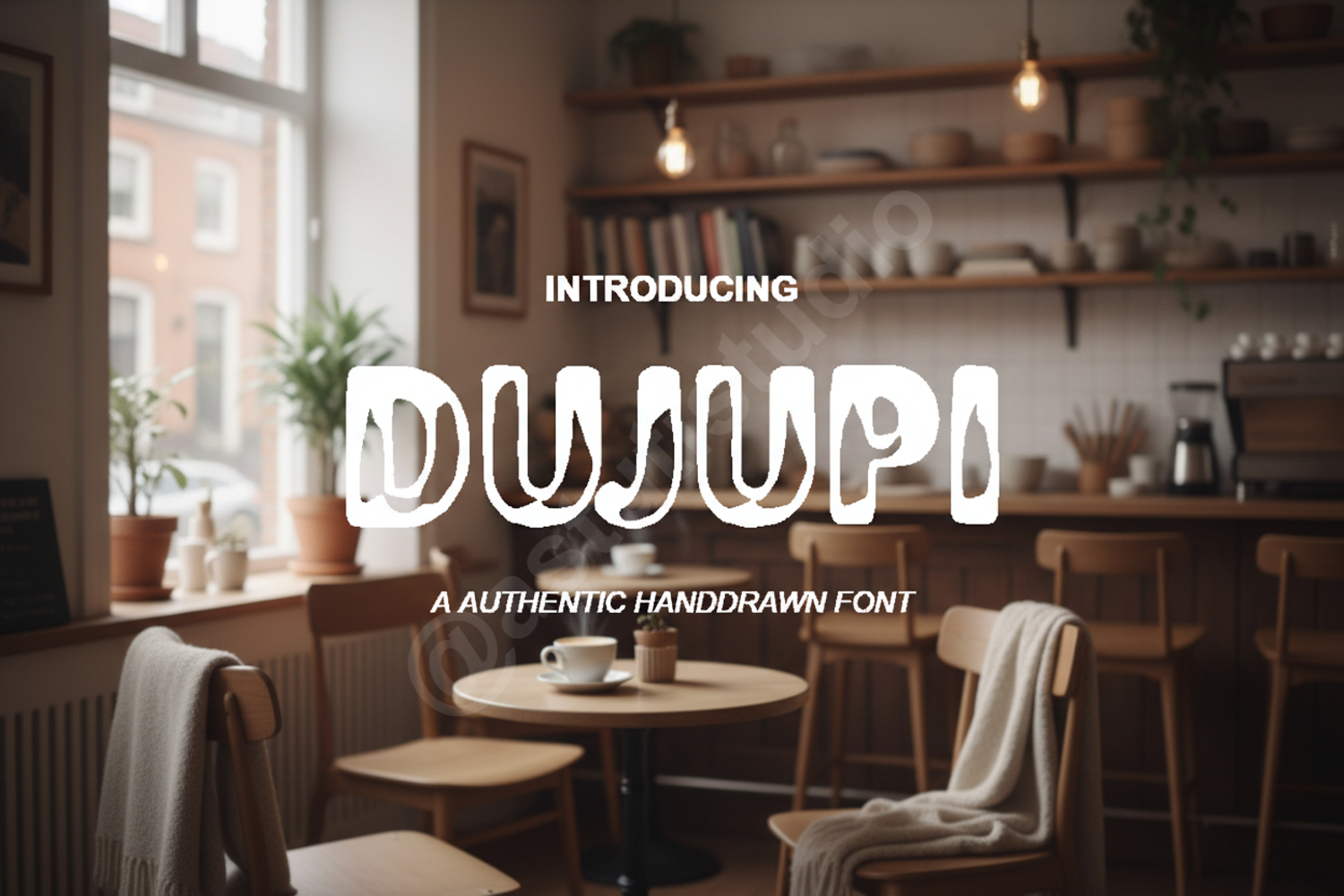
Dujupi - A Modern and Sophisticated Serif Typeface
Dujupi
Elevate your creative projects with Dujupi, a premium serif typeface that seamlessly blends modern aesthetics with timeless elegance. Dujupi is meticulously crafted to provide a sophisticated feel, making it an essential addition to any designer's toolkit. Its versatile nature allows it to stand out in both high-impact display settings and refined body text, ensuring your designs always look professional and polished.
- Full set of uppercase and lowercase letters
- Numerals and comprehensive punctuation
- Multi-language support for global versatility
- Branding and Identity: Create memorable logos and cohesive brand guidelines.
- Wedding Stationery: Design elegant invitations, place cards, and RSVP sets.
- Editorial Design: Perfect for magazine headers, stylish layouts, and book covers.
- Social Media: Enhance your digital presence with professional and catchy typography.
- Luxury Packaging: Add a high-end touch to product boxes, labels, and hangtags.